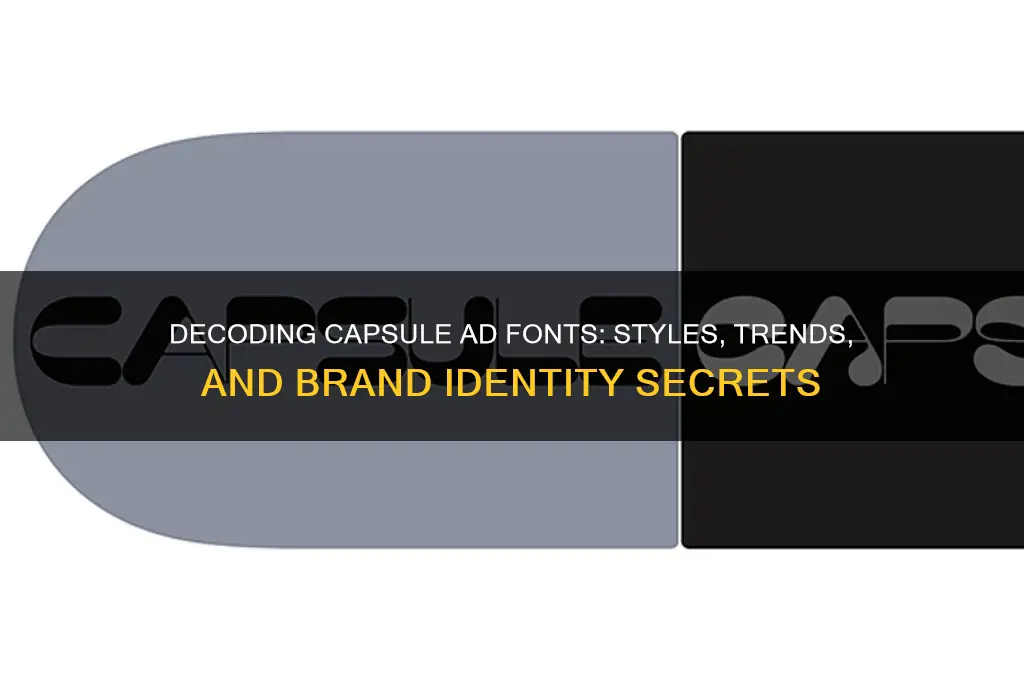
Capsule advertisements, often seen in pharmaceutical or health-related marketing, typically use clean, professional, and highly legible fonts to convey information clearly and authoritatively. Common choices include sans-serif fonts like Helvetica, Arial, or Calibri, which are favored for their simplicity and readability, especially in small print or limited space. Additionally, fonts like Frutiger or Univers may be used for their modern and trustworthy appearance, aligning with the medical or scientific nature of the products. The emphasis is always on clarity and professionalism, ensuring the message is easily understood by the target audience.
| Characteristics | Values |
|---|---|
| Font Name | Typically sans-serif fonts like Helvetica, Arial, or custom variations |
| Style | Clean, modern, and minimalist |
| Weight | Bold or semi-bold for emphasis and readability |
| Case | Often uppercase for a bold, attention-grabbing look |
| Spacing | Tight kerning and consistent letter spacing for a compact appearance |
| Color | High contrast colors (e.g., white text on dark backgrounds or vice versa) |
| Purpose | To convey information clearly and quickly in limited space |
| Examples | Pharmaceutical ads, supplement packaging, and health-related promotions |
| Common Variations | Custom fonts designed specifically for brands to maintain uniqueness |
| Readability | Prioritizes legibility, especially for small text sizes |
| Cultural Influence | Often reflects trustworthiness and professionalism in healthcare branding |
- Popular Fonts in Capsule Ads: Common typefaces like Helvetica, Futura, and Gotham dominate capsule advertisements
- Minimalist Font Choices: Clean, sans-serif fonts are preferred for readability and modern aesthetics in capsule ads
- Font Size and Spacing: Small, tightly spaced fonts maximize limited space while maintaining clarity in capsule designs
- Custom vs. Standard Fonts: Some brands use custom fonts, while others rely on widely available standard typefaces
- Font Color and Contrast: High-contrast colors ensure text stands out against capsule backgrounds for better visibility
Popular Fonts in Capsule Ads: Common typefaces like Helvetica, Futura, and Gotham dominate capsule advertisements
Capsule advertisements, those bite-sized promotional snippets, often rely on a select few typefaces to convey their message effectively. Among these, Helvetica, Futura, and Gotham stand out as the go-to choices for designers. Their clean lines, modern aesthetics, and exceptional legibility make them ideal for the limited space and quick impact required in capsule ads. Helvetica, with its neutral and versatile design, ensures that the message remains the focal point, while Futura’s geometric precision adds a touch of sophistication. Gotham, inspired by architectural signage, brings a robust and contemporary feel, making it perfect for bold statements. Together, these fonts dominate the landscape, shaping how brands communicate in condensed formats.
To understand why these fonts are so prevalent, consider their adaptability across mediums. Helvetica’s timeless appeal works seamlessly in both print and digital ads, ensuring consistency in brand messaging. Futura’s minimalist design pairs well with high-contrast visuals, often used in capsule ads to grab attention quickly. Gotham’s wide letterforms and open counters enhance readability, even in small sizes, making it a practical choice for text-heavy capsules. For instance, a health supplement ad might use Gotham for its product name and Helvetica for dosage instructions (e.g., "Take 2 capsules daily for adults aged 18+") to balance clarity and style. This strategic pairing ensures the ad is both visually appealing and informative.
When selecting a font for your capsule ad, start by defining your brand’s tone. If your goal is to project reliability and professionalism, Helvetica is a safe bet. For a futuristic or innovative vibe, Futura’s geometric shapes can elevate your design. Gotham, with its urban and dynamic character, suits brands aiming for a modern, approachable image. Pair these fonts with contrasting colors and concise copy to maximize impact. For example, a skincare ad targeting teens might use Futura in bold pink for the product name and Helvetica in white for the tagline, creating a youthful yet polished look. Remember, the font should complement the message, not overshadow it.
Despite their popularity, overusing these fonts can lead to visual monotony. To stand out, experiment with variations like Helvetica Neue or Futura PT, which offer subtle tweaks while retaining the original essence. Alternatively, combine these fonts with a secondary, more distinctive typeface for headings or accents. For instance, pairing Gotham with a handwritten script can add warmth to a wellness capsule ad. However, exercise caution—too much variation can clutter the design. Stick to a maximum of two fonts and ensure they align with your brand identity. A well-executed font choice not only enhances readability but also reinforces brand recognition, making your capsule ad memorable in a crowded market.
In conclusion, Helvetica, Futura, and Gotham dominate capsule advertisements for good reason: they balance aesthetics, functionality, and versatility. By understanding their strengths and applying them strategically, you can create ads that resonate with your audience. Whether you’re promoting a pharmaceutical product with precise dosage instructions or a lifestyle brand with a catchy slogan, these fonts provide a solid foundation. Pair them thoughtfully, experiment cautiously, and let the typography amplify your message, ensuring your capsule ad leaves a lasting impression.
Minimalist Font Choices: Clean, sans-serif fonts are preferred for readability and modern aesthetics in capsule ads
Capsule advertisements often rely on clean, sans-serif fonts to convey information quickly and effectively. These fonts strip away decorative elements, focusing on simplicity and clarity. Think of Helvetica, Futura, or Proxima Nova—typefaces that dominate modern branding and digital interfaces. Their uniform strokes and open letterforms ensure text remains legible even at small sizes, a critical factor when space is limited, as in capsule ads.